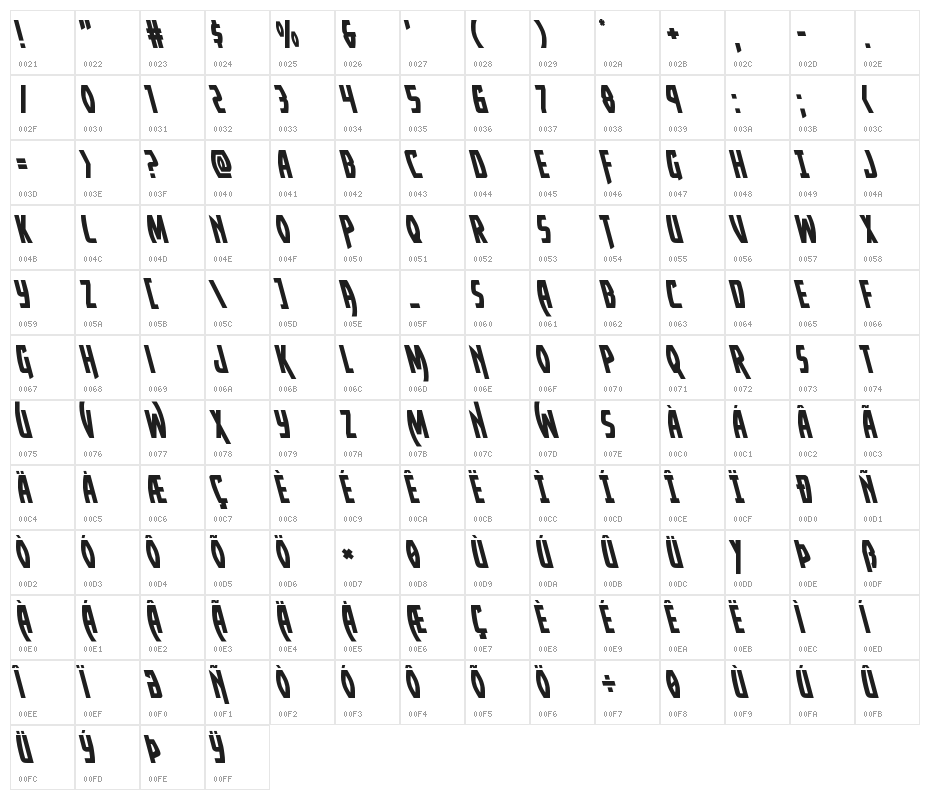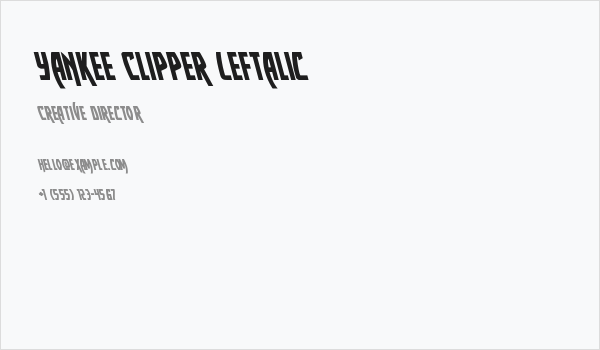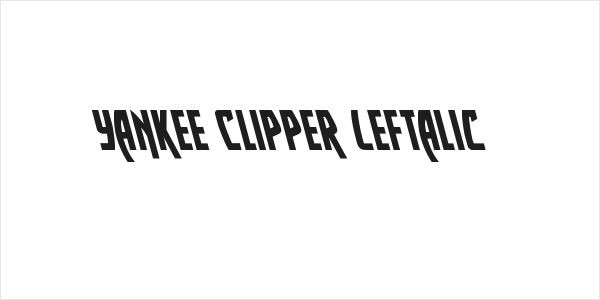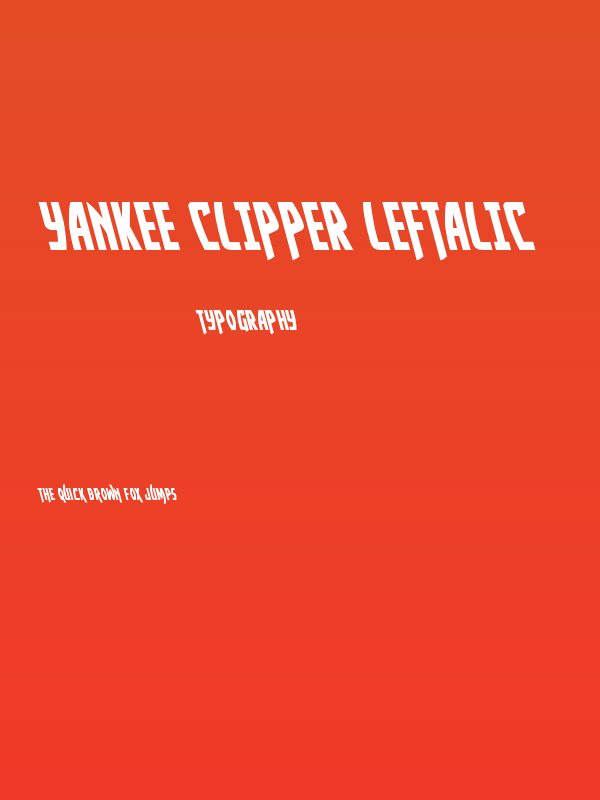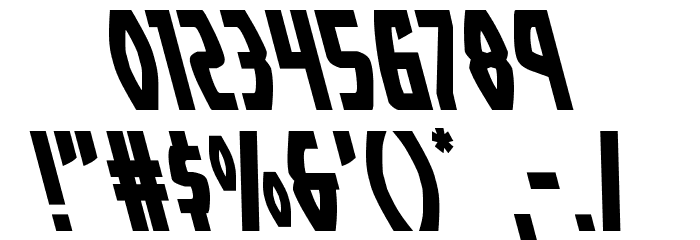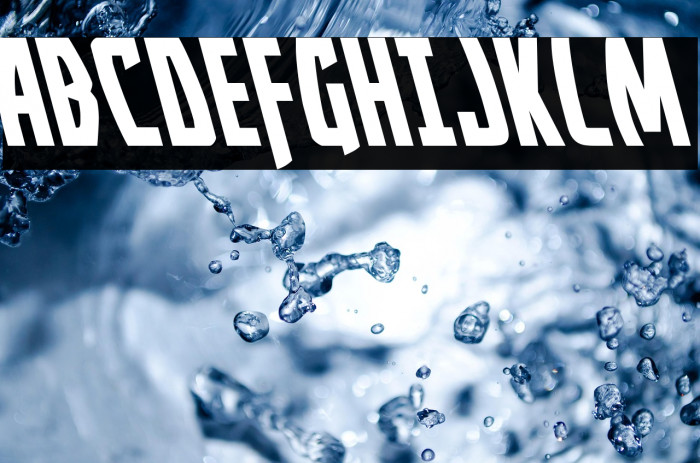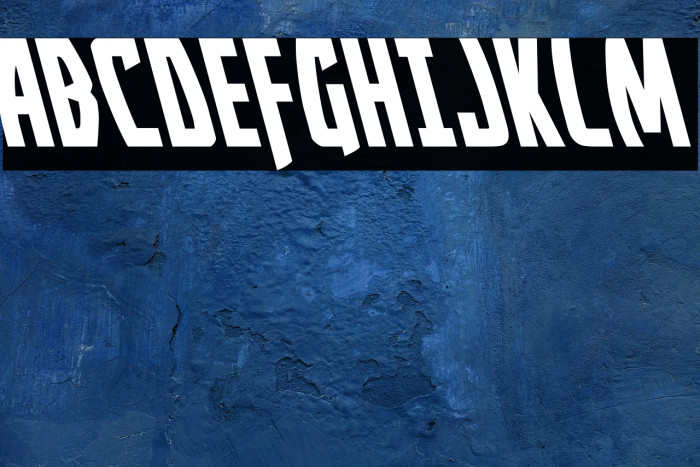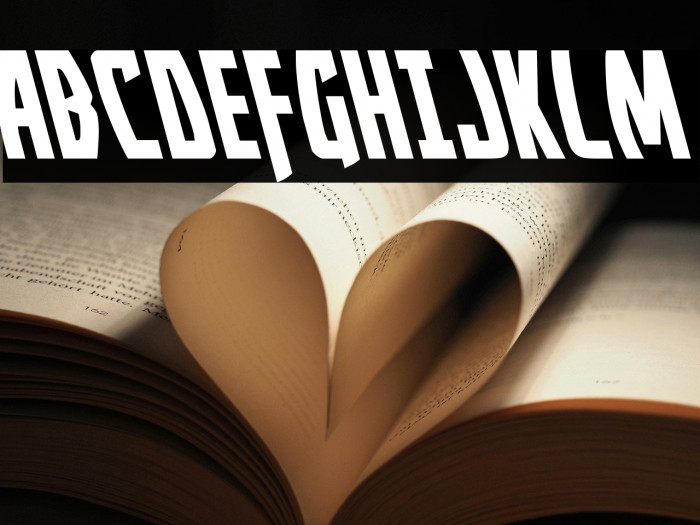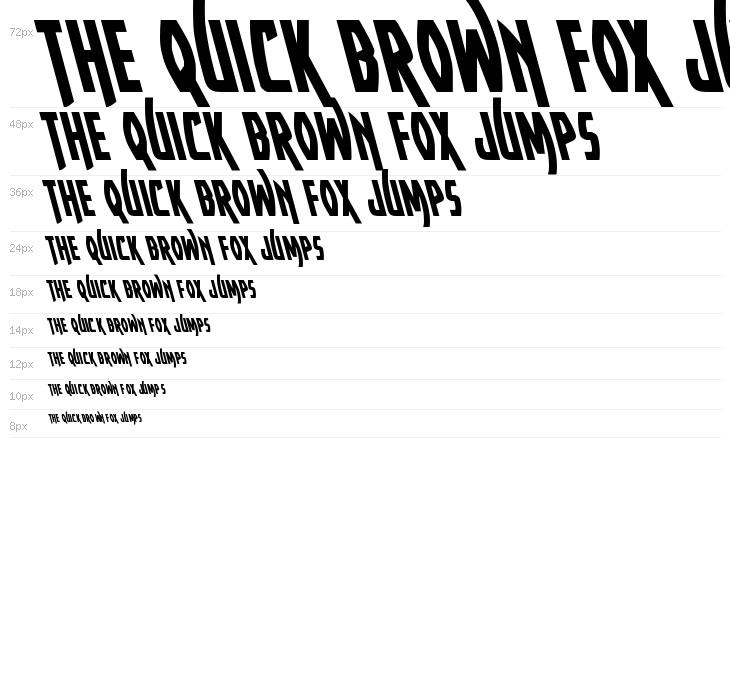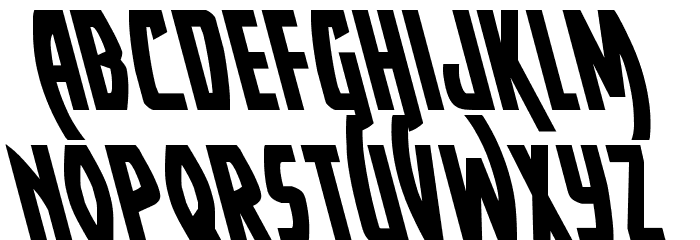
Yankee Clipper Leftalic Font
This font features a bold and dynamic style with a distinct slant to the left, giving it a sense of movement and energy. The characters are thick and angular, with sharp edges and a slightly condensed form. The uppercase and lowercase letters maintain a consistent style, with the uppercase being more prominent. Numbers and special characters are designed to match the boldness and angularity of the letters, ensuring a cohesive look. This font's unique style makes it stand out, suitable for projects that require a strong visual impact.
| Proposed Projects | Ideal for sports branding, dynamic posters, and edgy graphic design projects. |